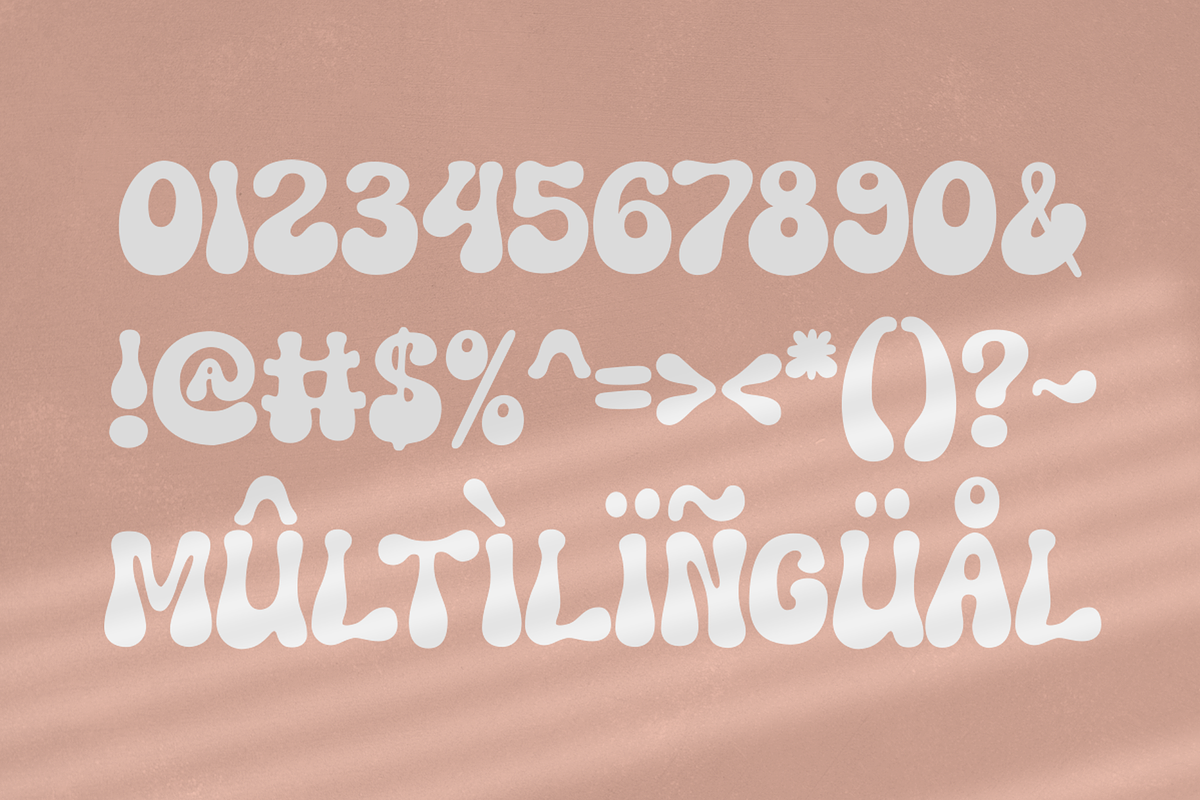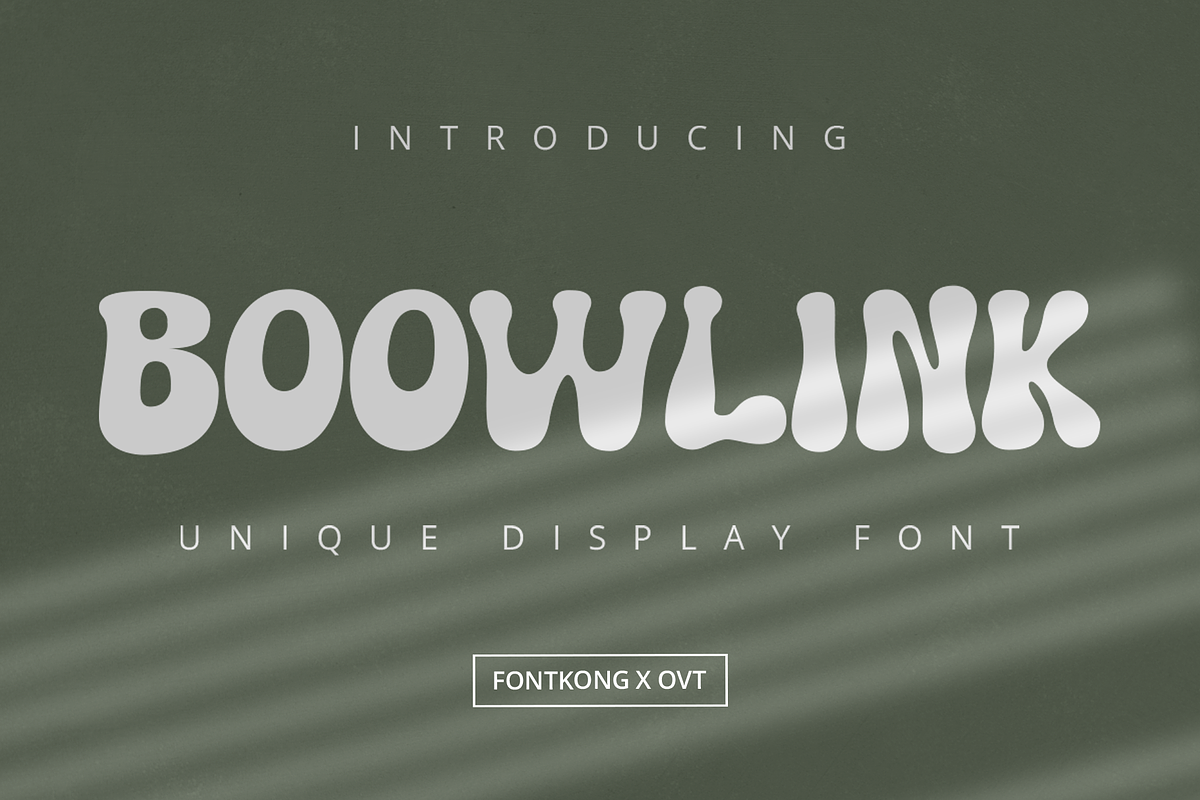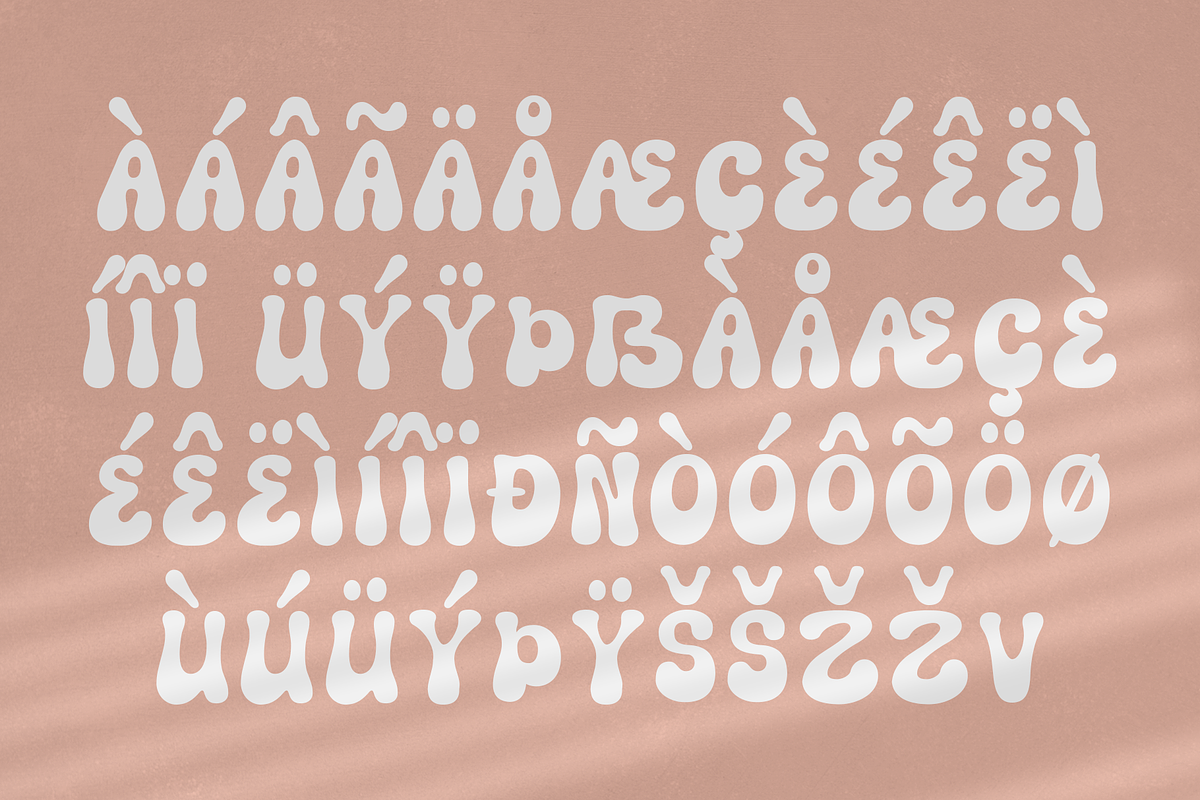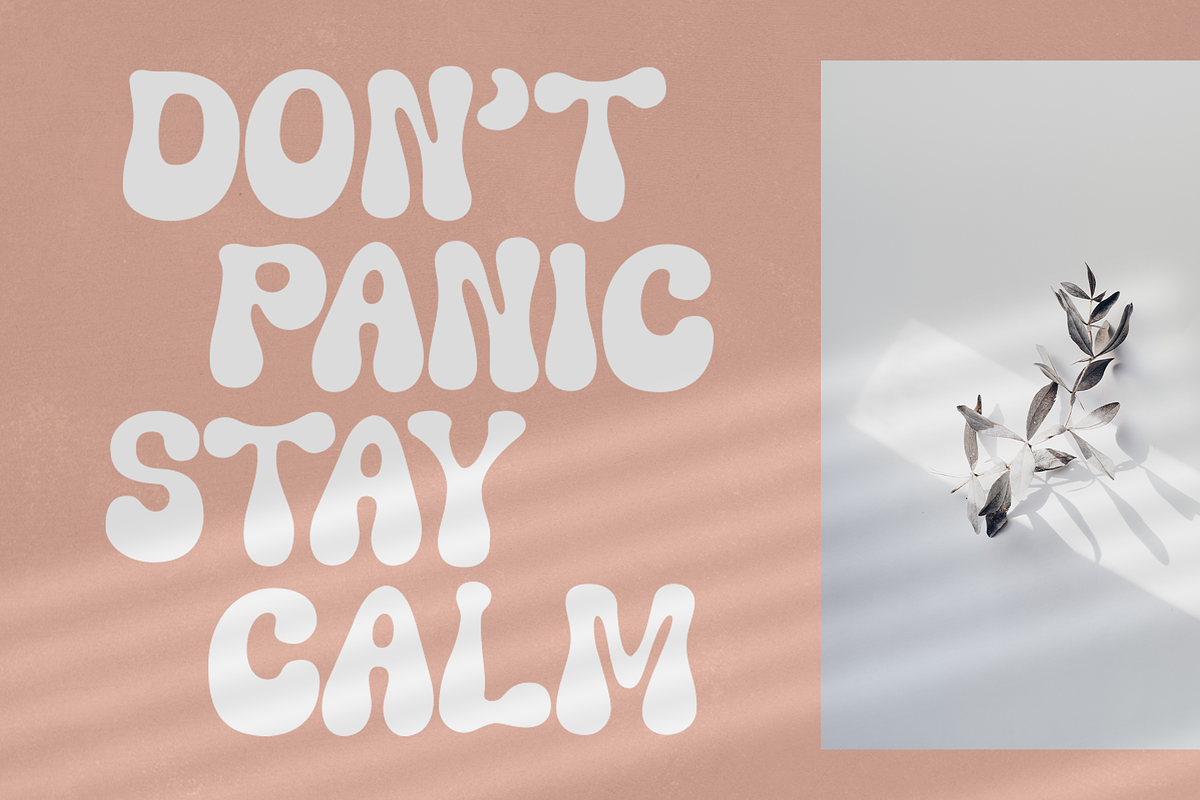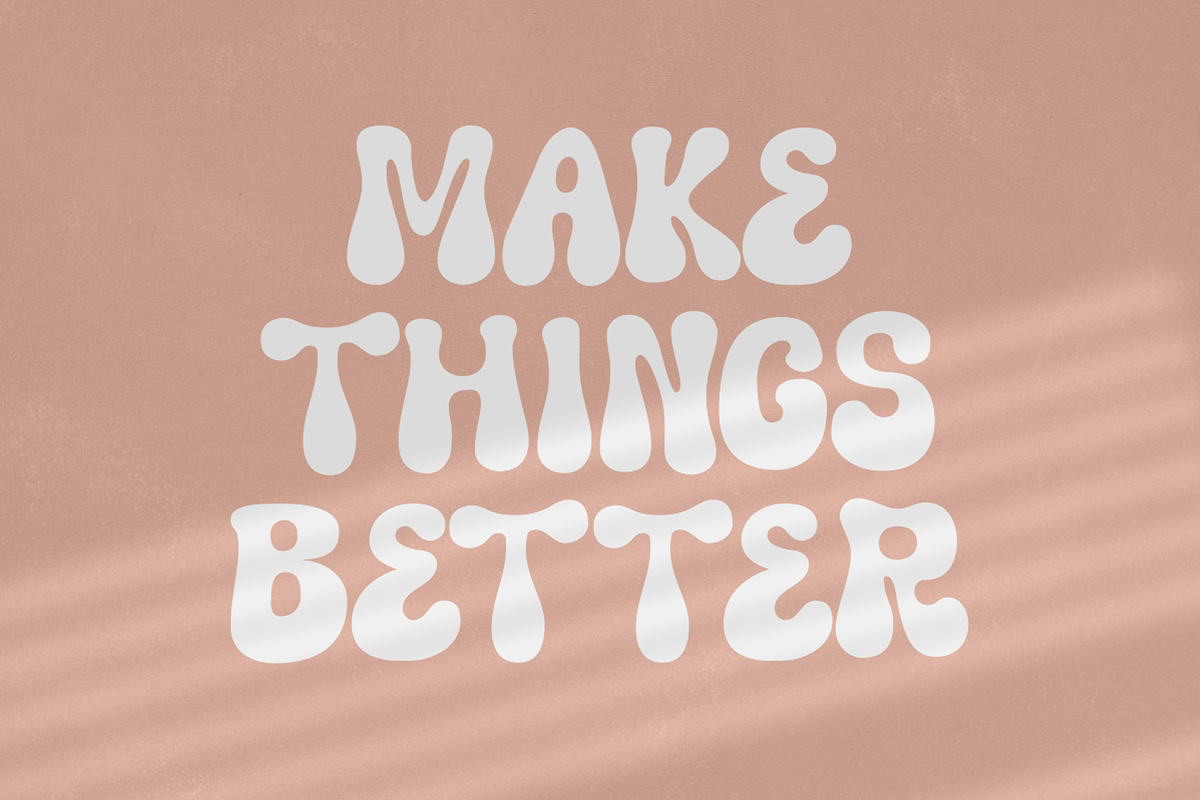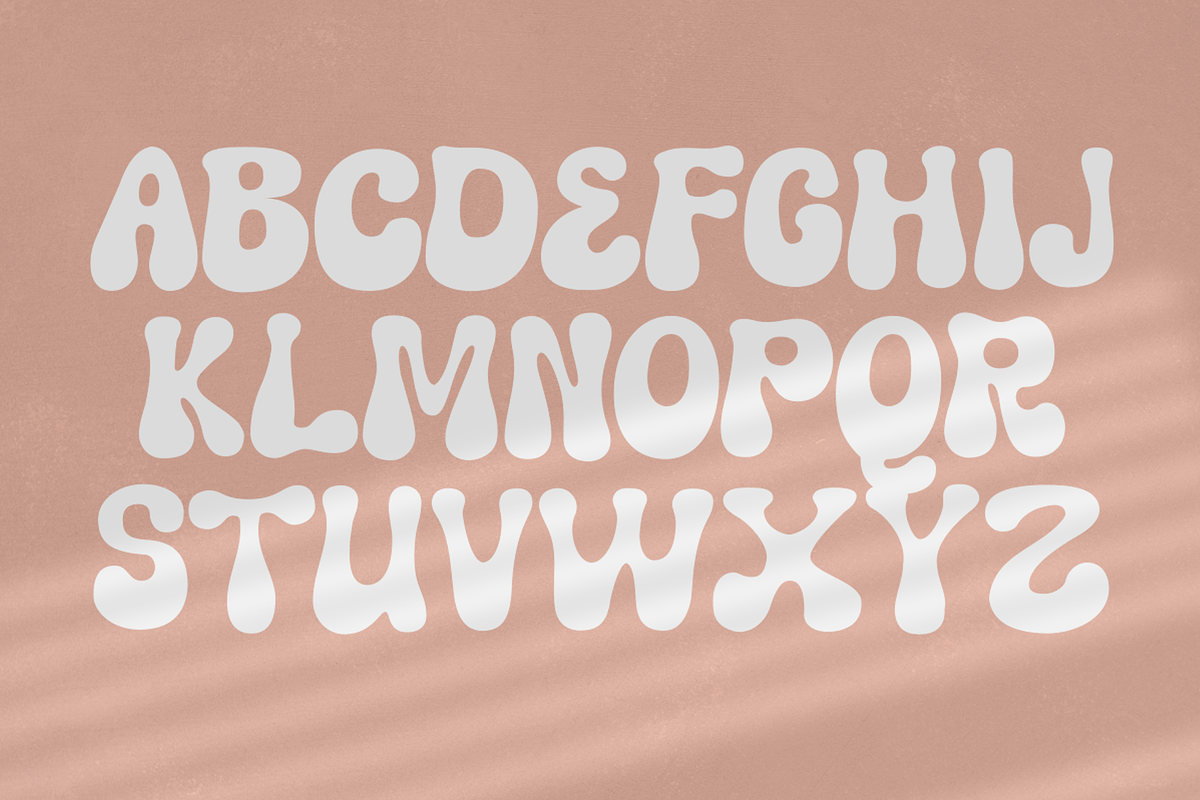
Boowlink - Unique Display Font
Introducing "Boowlink," a unique display font that brings distinctive flair and bold creativity to your design projects. Perfect for graphic designers, artists, and creatives who seek to make a striking statement, Boowlink offers an original and eye-catching style that stands out in any context.
Ideal for posters, logos, branding, album covers, and social media graphics, Boowlink’s unconventional shapes and playful design provide a memorable and dynamic aesthetic. Each character is meticulously crafted to reflect originality and artistic expression, ensuring your designs capture attention and imagination.
The "Boowlink" font includes a complete set of uppercase and lowercase letters, numbers, punctuation marks, and special characters. This versatility allows for seamless integration into various design projects, from bold headlines to distinctive branding elements.
Infuse your projects with bold creativity and unique style using Boowlink, the display font that makes every design unforgettable.